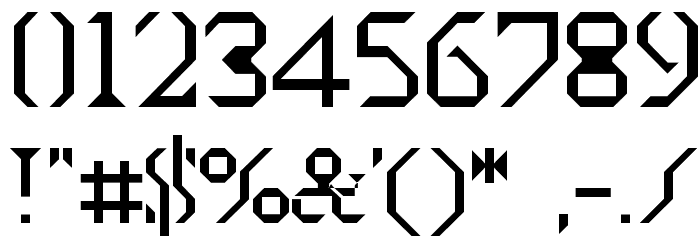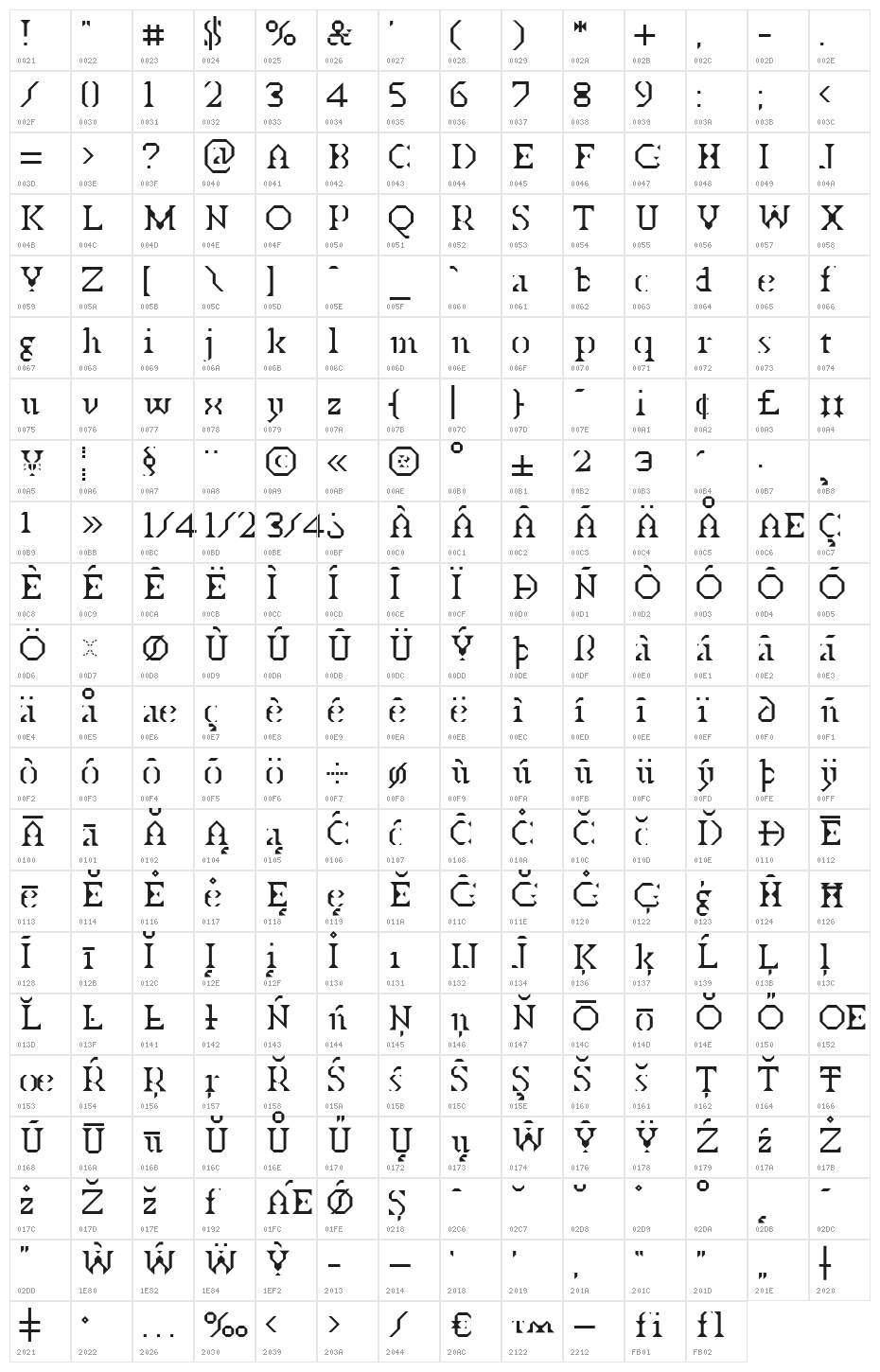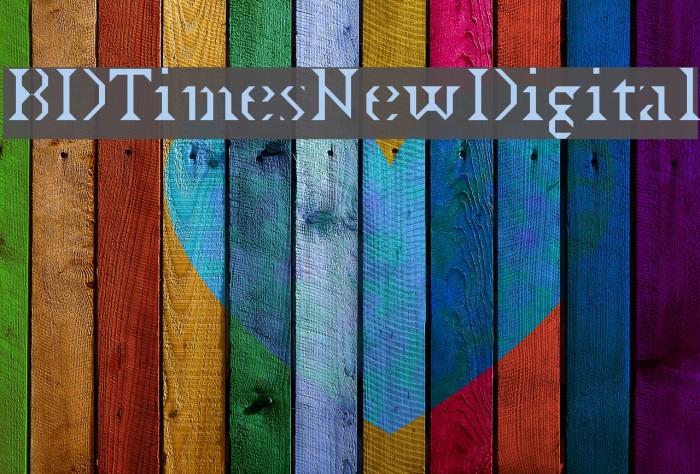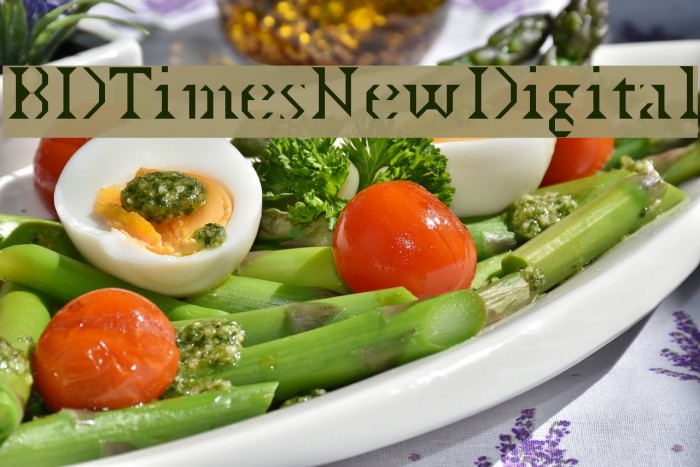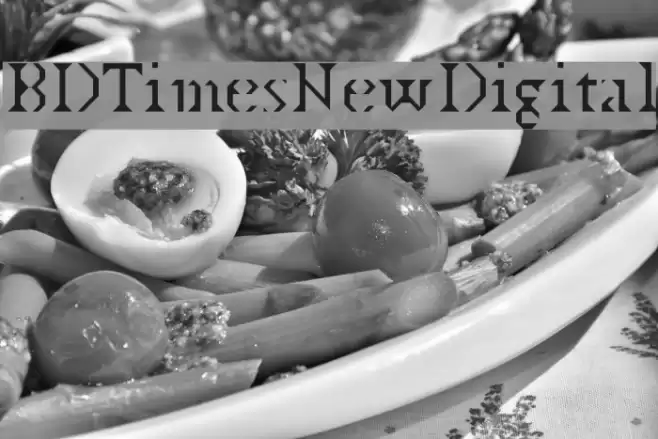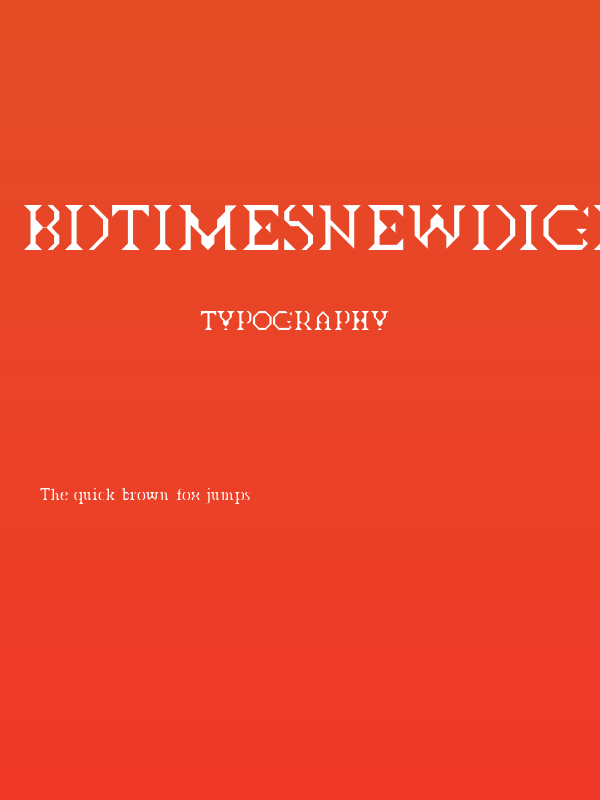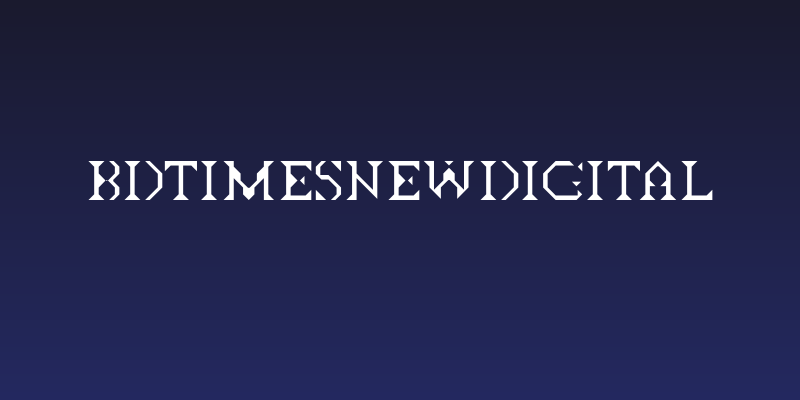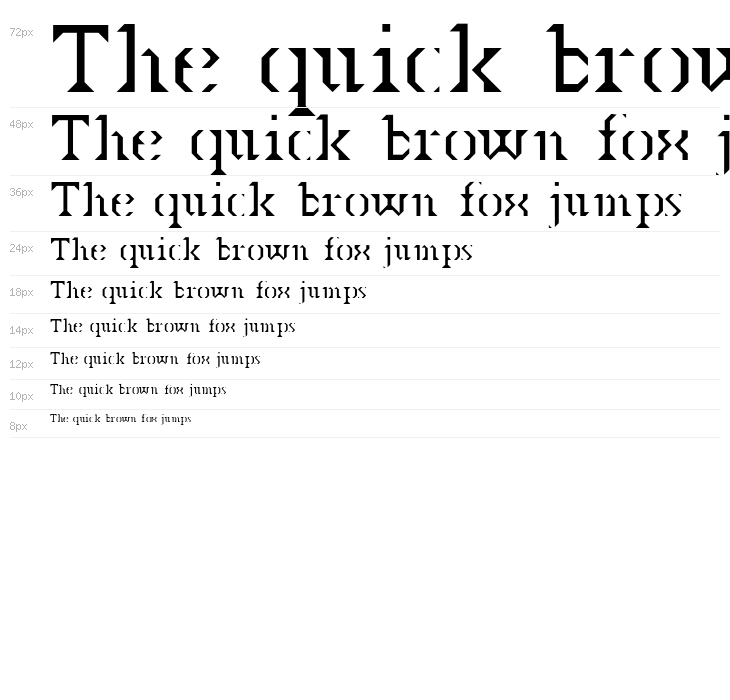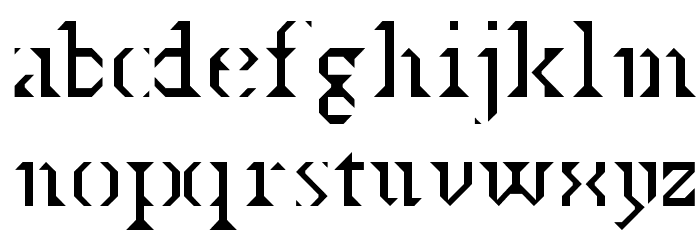
BDTimesNewDigital Font
BDTimesNewDigital Description
This font features a bold, geometric design with sharp angles and a futuristic aesthetic. The characters are constructed with a stencil-like appearance, incorporating both solid and negative spaces to create a dynamic visual effect. The uppercase and lowercase letters maintain a consistent style, with angular cuts and a uniform stroke width that gives the font a cohesive look. The numerals and special characters follow the same design principles, ensuring a harmonious overall appearance. This font's unique style makes it stand out, offering a modern twist on traditional typefaces.